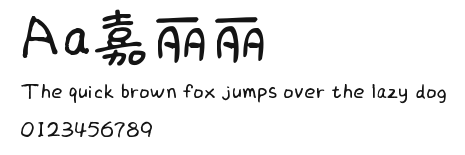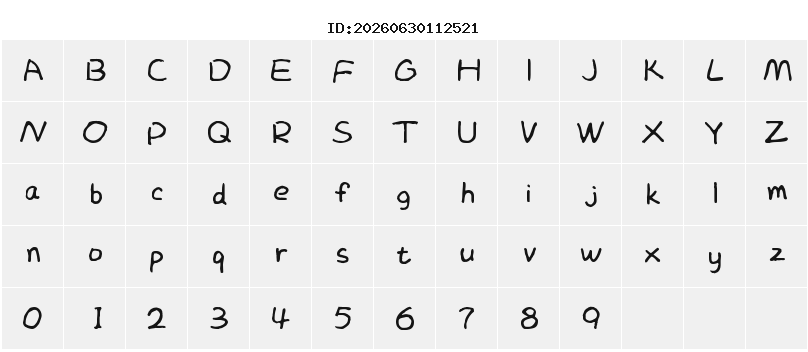
Aa嘉丽丽 Preview
• Font Name: Aa嘉丽丽
• Font Style: 常规
• Font ID: 1.000;Aa;AaCarrie;2016
• Full Font Name: Aa嘉丽丽
• PostScript Name: AaCarrie
• Character Count: 8445
• Designer: Aa
• Manufacturer: 北京奇思众和科技有限公司
• Description: AaCarrie is a fantastic font with excellent features designed for user interfaces and electronic communications.
About Aa嘉丽丽.ttf
Aa嘉丽丽.ttf is a modern, elegant sans-serif font designed for ultimate readability and visual harmony. Perfect for branding, headlines, web design, and print materials.